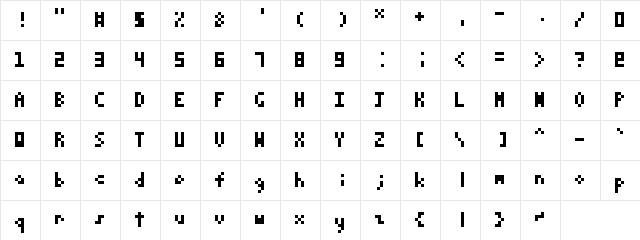
3 by 5 Regular
| Designer | hakr14 |
Design Context for 3 by 5 Typeface
3 by 5 takes a measured approach to typography — its balanced proportions and neutral character make it a reliable workhorse for both digital and print work.